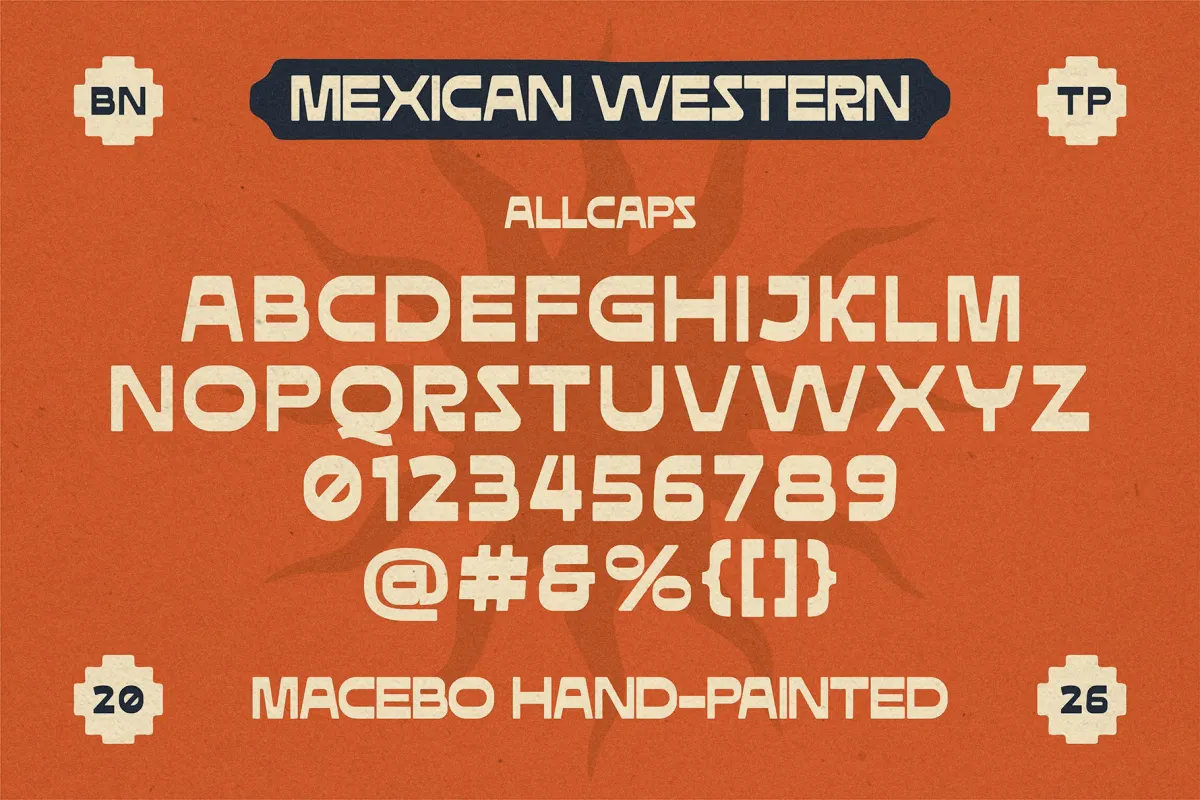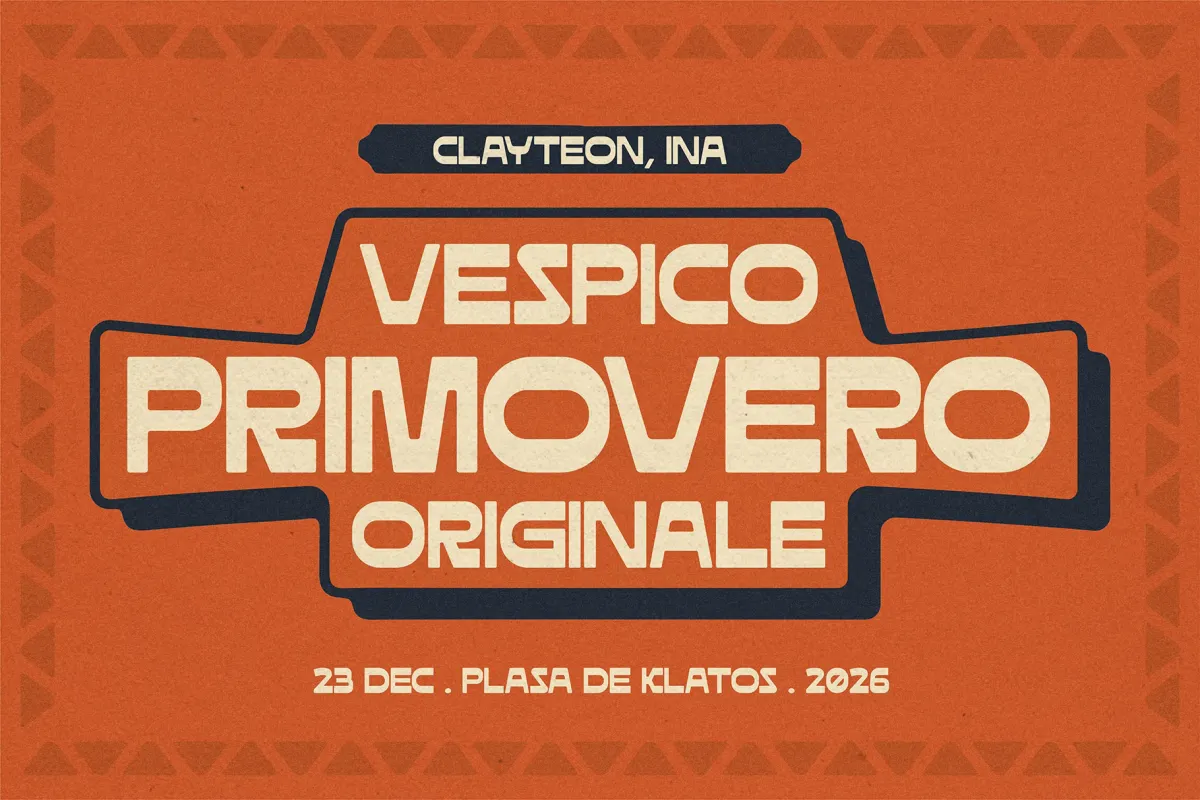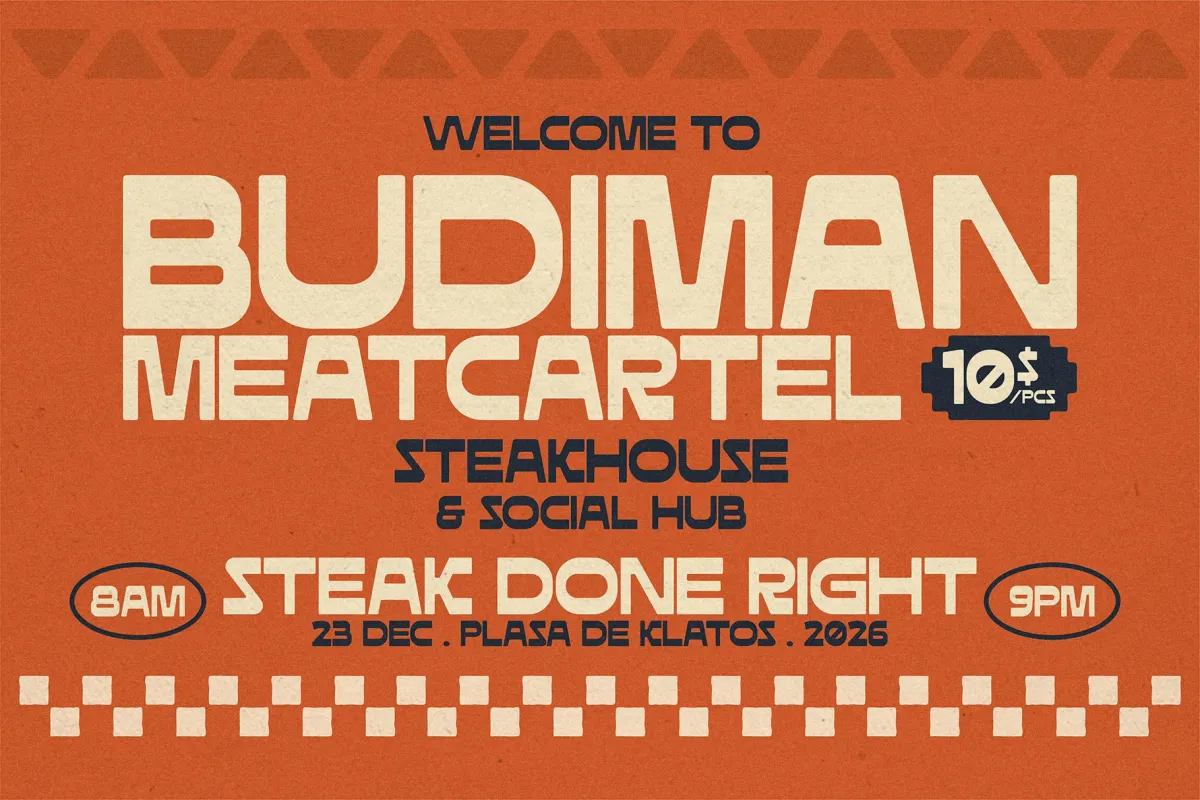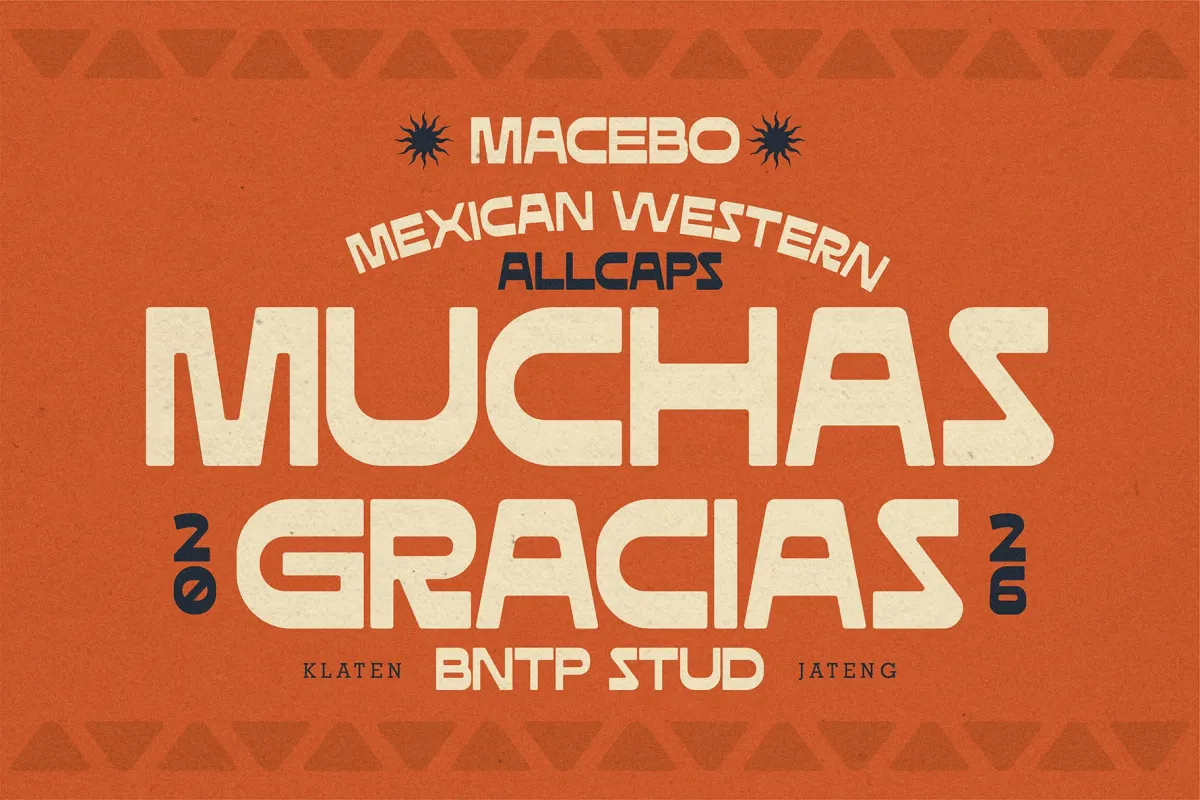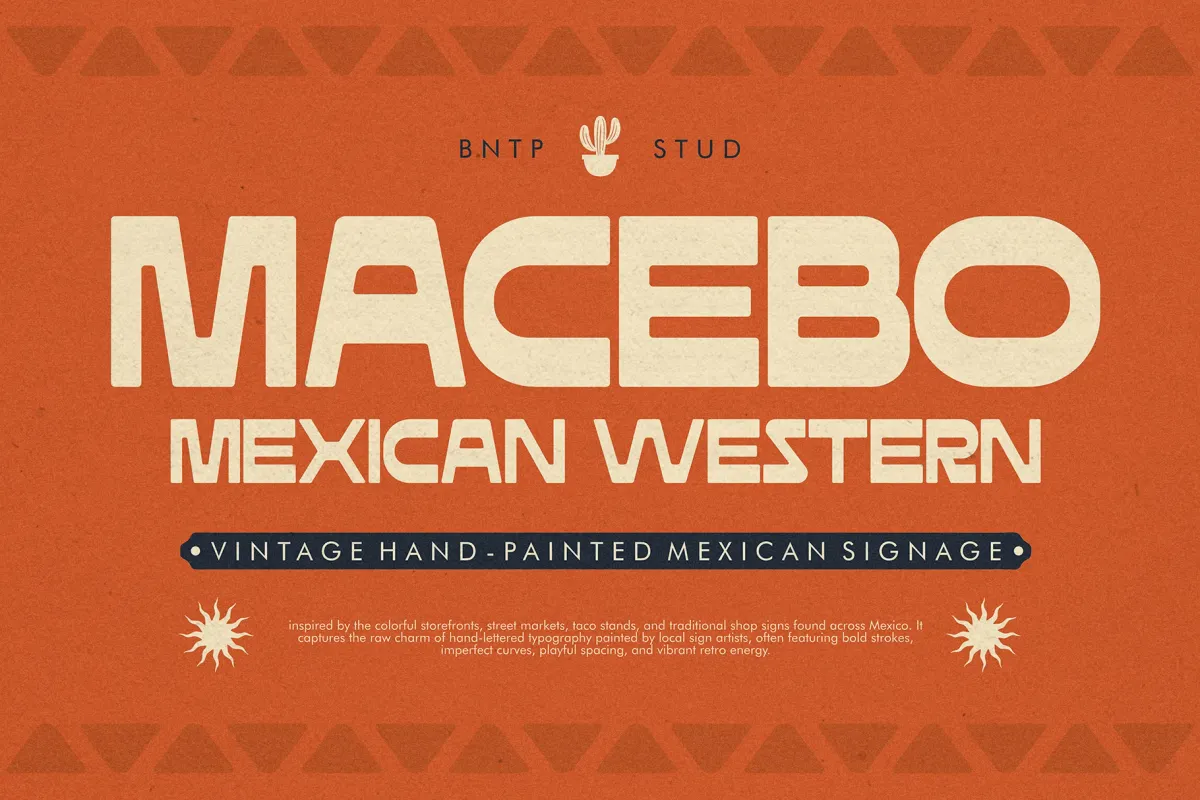
Macebo - Chunky All-Caps Western Font
Macebo pulls its construction from the hand-painted signage of Mexican taco stands, cantina walls, and desert market stalls, landing as a bold western font built entirely in caps. Strokes run thick with slightly uneven widths, corners come notched instead of squared off, and letters sit close together, keeping the loose, fast-brushed rhythm of a sign painter working before opening hours.
At large sizes, it holds up like a storefront sign painted overnight; at smaller sizes, the chunky caps still read clearly in a headline or logotype. Use it for taco shop and cantina branding, festival and market posters, packaging labels, western-themed apparel, and travel or hospitality signage.
- uppercase only, with lowercase keys typing as capitals;
- numerals, punctuation & symbols;
- kerning support;
- broad Western & Nordic European language coverage.